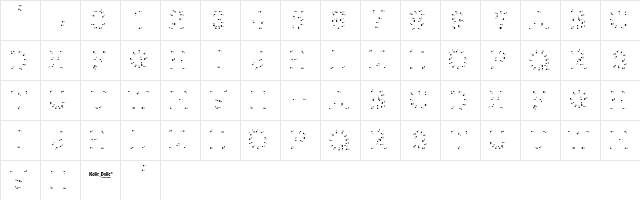
0Pointe-AFaire Regular Free Font
0Pointe-AFaire Regular
Foundry: Kolle_Bolle
Designer: Olivier Chabanis Christophe Chelmis
Design Context for 0Pointe-AFaire
0Pointe-AFaire is a composed and adaptable typeface that performs quietly and consistently across a wide range of design contexts.
Who designed the 0Pointe-AFaire Regular font?